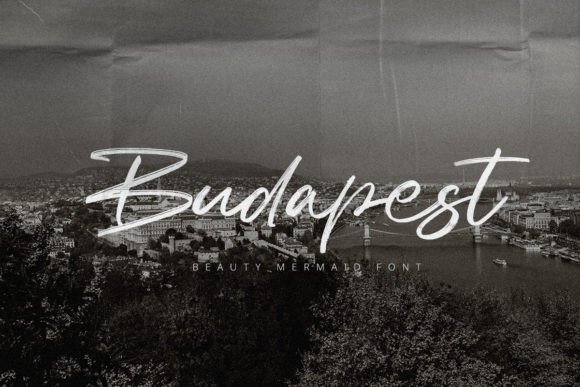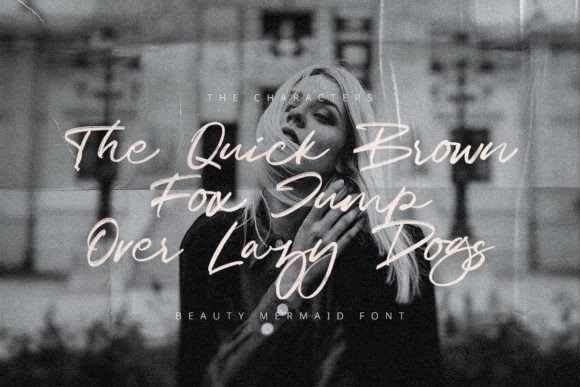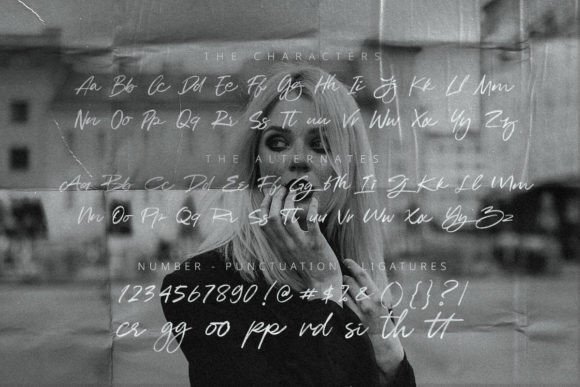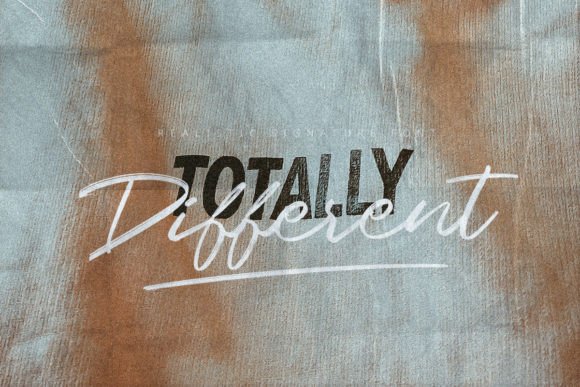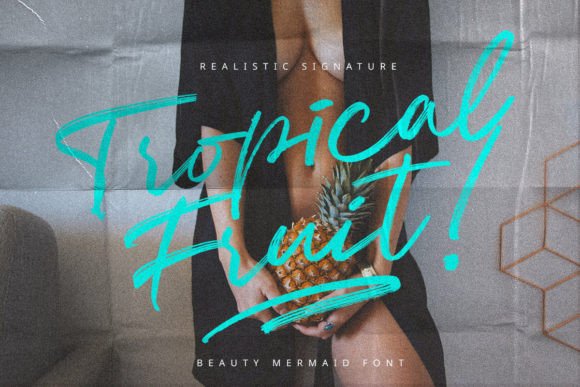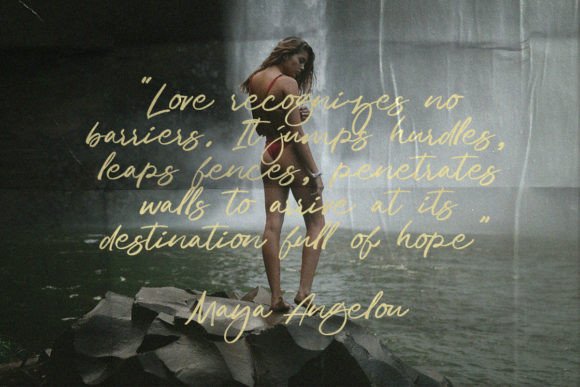
Unleash Your Creativity with the Alluring Beauty Mermaid Font
Enter the enchanting Beauty Mermaid Font – a modern and beautiful textured script font that’s perfect for adding a touch of elegance and sophistication to your work. Whether you’re a seasoned designer or just starting out, this versatile font is sure to become a trusted companion in your creative journey. With its perfect blend of trendiness and timelessness, Beauty Mermaid Font is an invaluable asset for anyone looking to elevate their designs and make a lasting impression.
Key Features of Beauty Mermaid Font
- Unique Characteristics: The font features a unique blend of modern and vintage elements, with intricate details and ornaments that evoke a sense of whimsy and romance.
Beauty Mermaid Font Review
Overall, I think the Beauty Mermaid Font has a certain charm to it. Here are some of its good qualities:✨
- Whimsical and playful aesthetic that can add a touch of magic to any design.
- Well-suited for feminine or underwater-themed projects, such as beauty products, kids’ books, or aquarium websites.
- Highly customizable, allowing you to adjust the color, size, and style to fit your design needs.
However, there are a few limitations to consider:⚠️
- May not be the best choice for more formal or professional projects, as it can come across as too whimsical or childish.
- Some characters may not render properly at smaller font sizes, which can affect readability.
- Limited language support, which may limit its use for international projects.
Overall, I think the Beauty Mermaid Font is a fun and creative choice for the right projects. While it may have some limitations, its unique charm and high customization options make it a great addition to any designer’s toolkit.
Beauty Mermaid Font is ideal for creating eye-catching titles, headings, and captions for beauty, fashion, and lifestyle-related content.
- Beauty product packaging and branding.
- Fashion blog and magazine headers.
- Spa and wellness center signage.